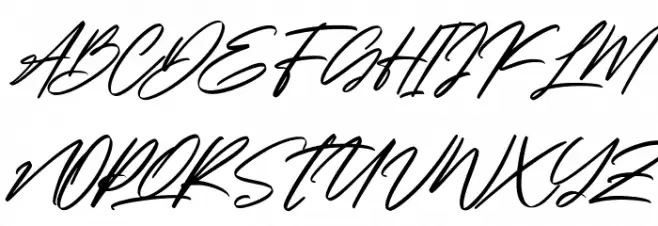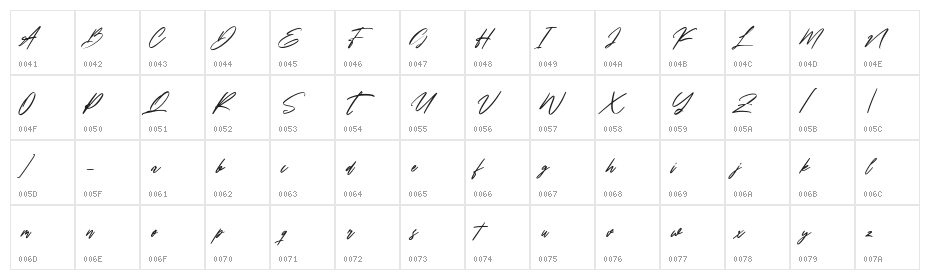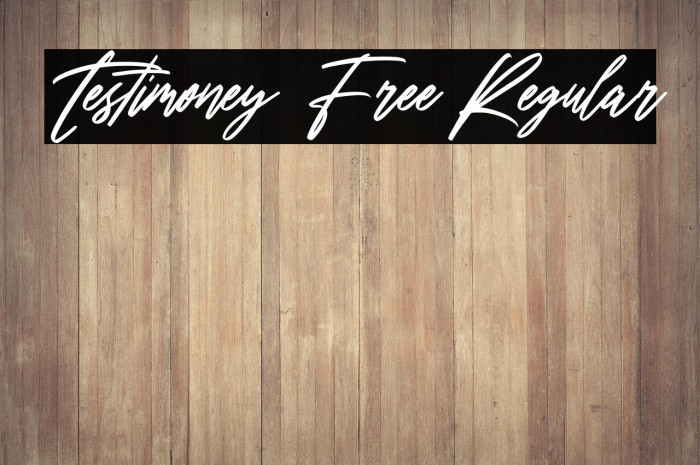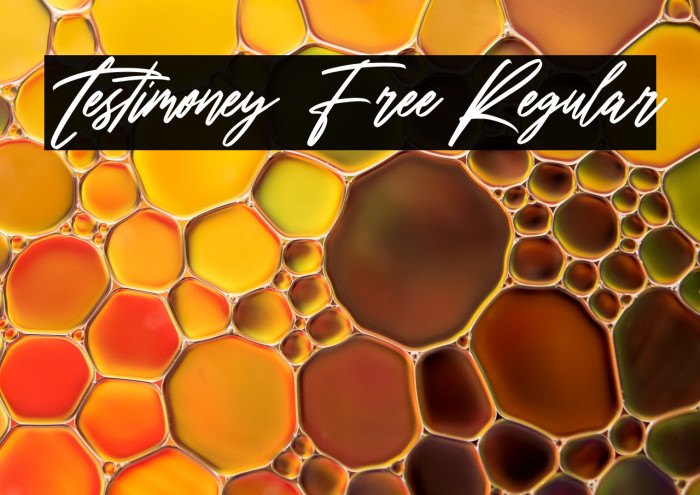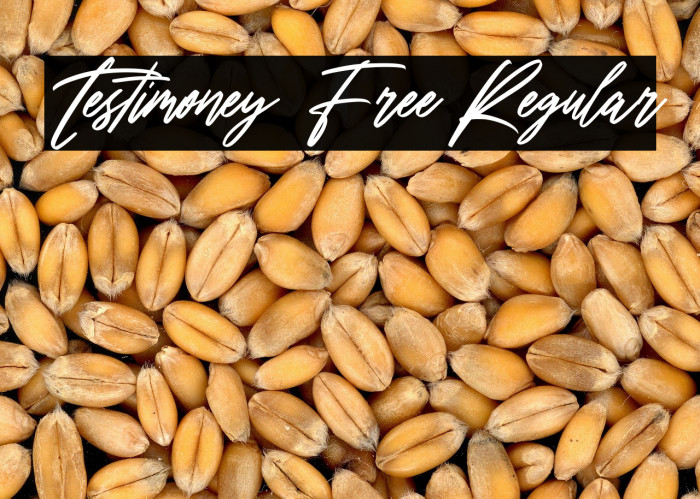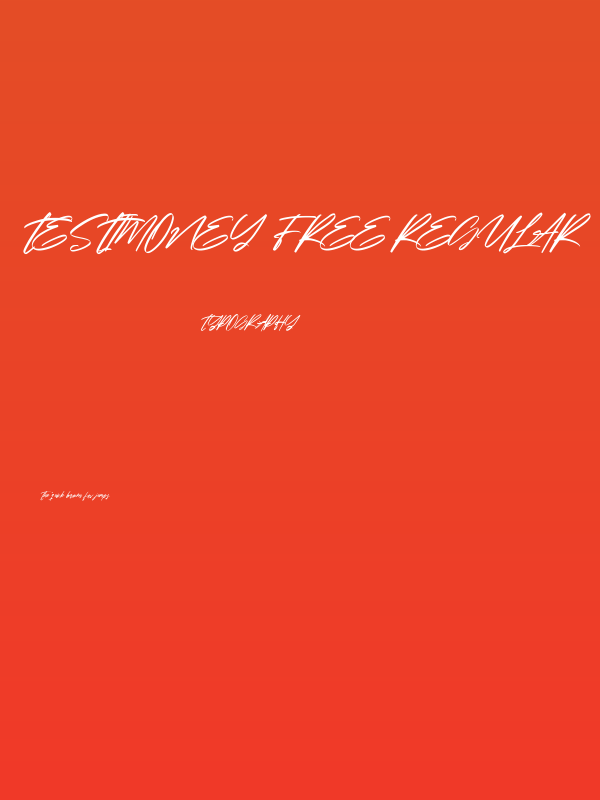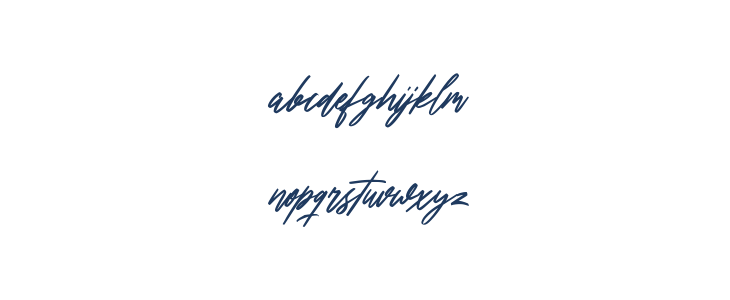
Testimoney Free Regular Font
Testimoney Free Regular Description
This font features a dynamic and fluid script style, characterized by its elegant, flowing lines and cursive letterforms. The uppercase letters are bold and sweeping, with a sense of movement and flair, while the lowercase letters maintain a consistent, connected flow. The overall appearance is both sophisticated and artistic, making it suitable for creative and expressive projects. The font's design emphasizes individuality and style, with a handwritten feel that adds a personal touch to any text. The characters are well-balanced, with a slight slant that enhances the script's natural rhythm.
| Proposed Projects | Ideal for wedding invitations, branding, logos, and artistic projects requiring a personal touch. |